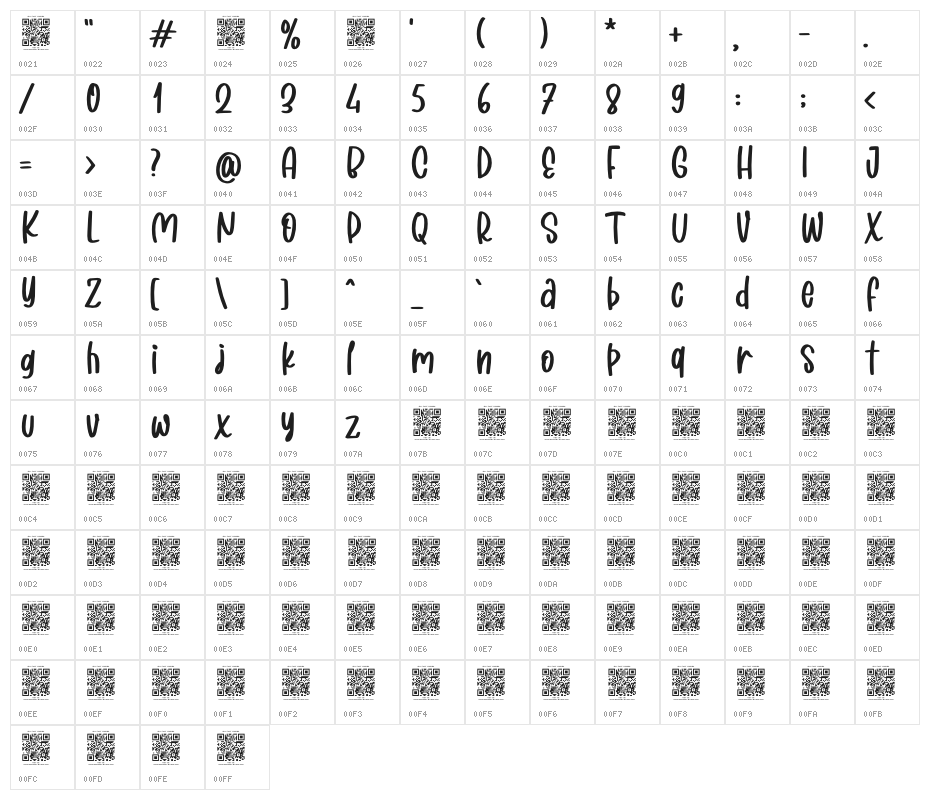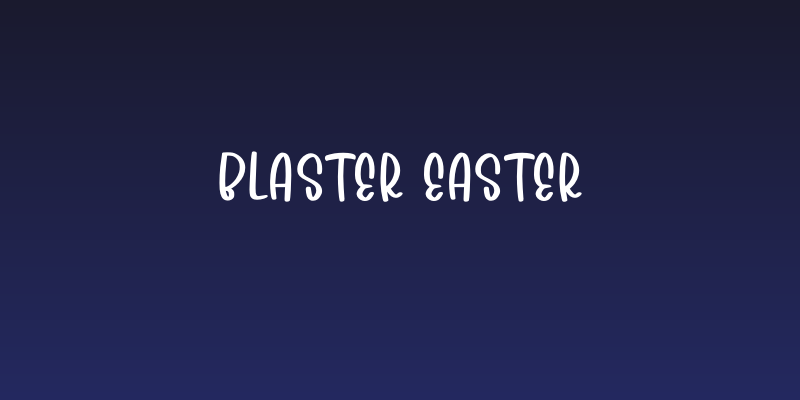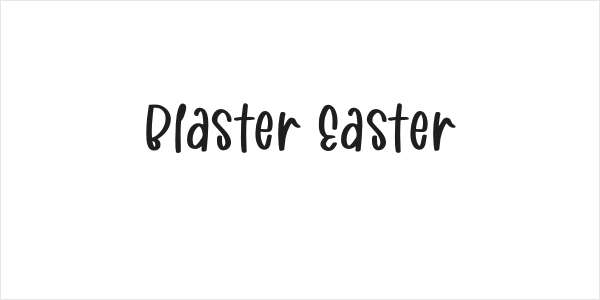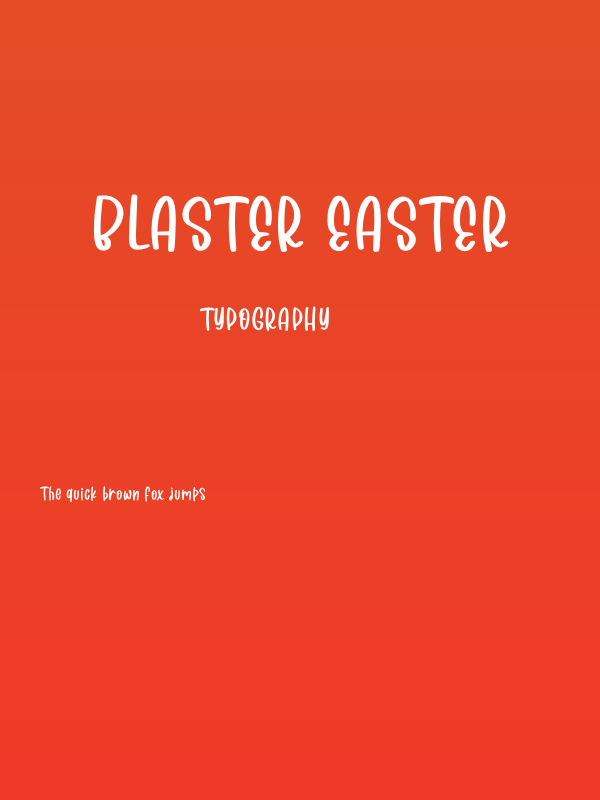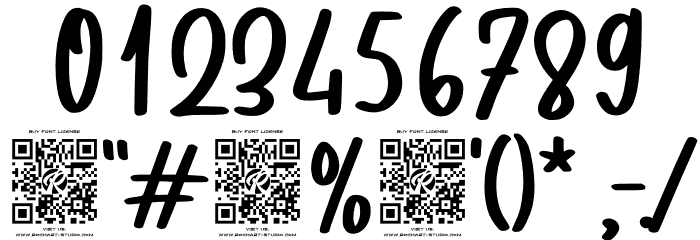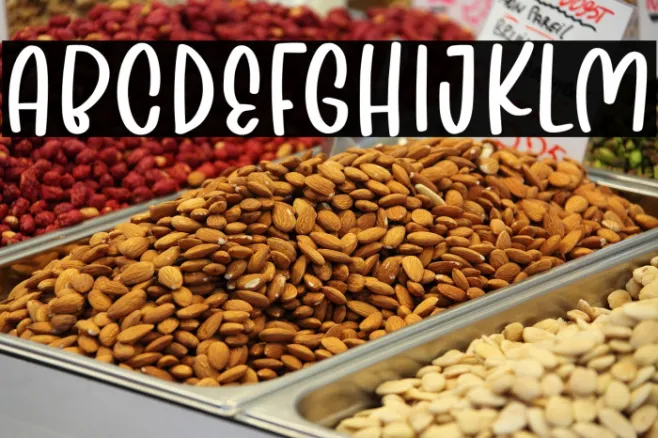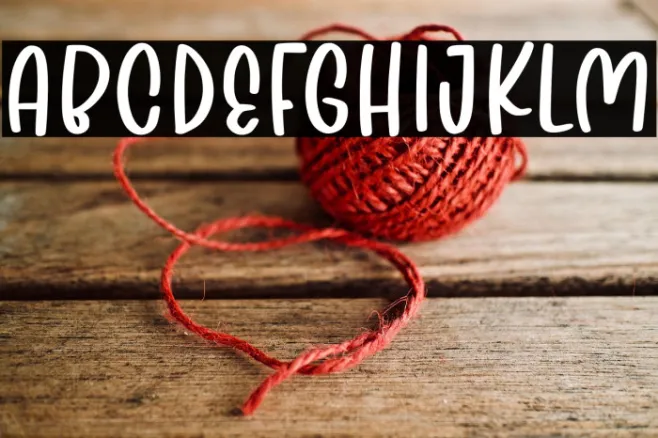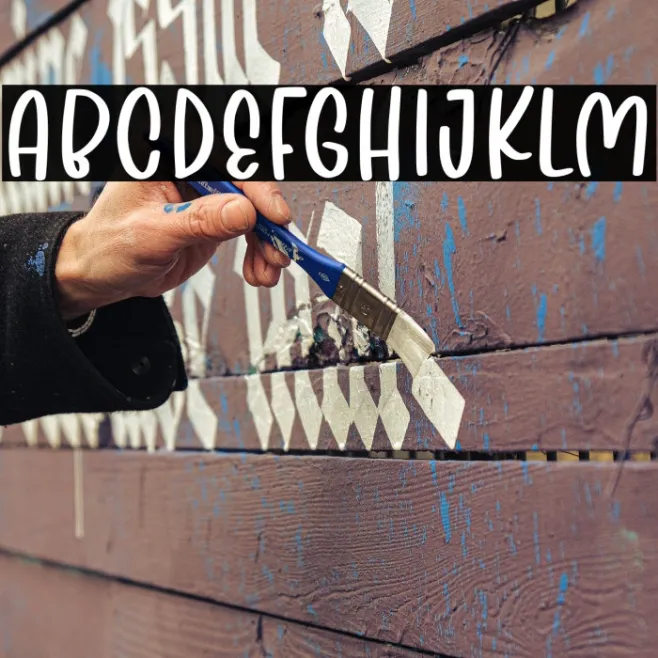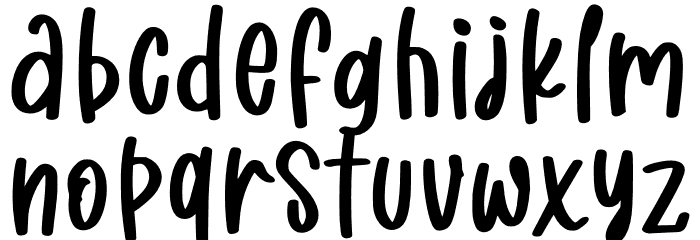
Blaster Easter Font
Blaster Easter Description
This font features a playful and energetic handwritten style, characterized by its bold and rounded letterforms. The uppercase and lowercase letters maintain a consistent flow, with slightly exaggerated curves and a casual, informal appearance. The numbers and special characters follow the same lively aesthetic, making the font suitable for creative and fun projects. The overall design is approachable and friendly, with a touch of whimsy that adds personality to any text. The strokes are uniform in width, providing a balanced and cohesive look across all characters.
| Proposed Projects | Ideal for children's books, greeting cards, playful branding, and social media graphics. |